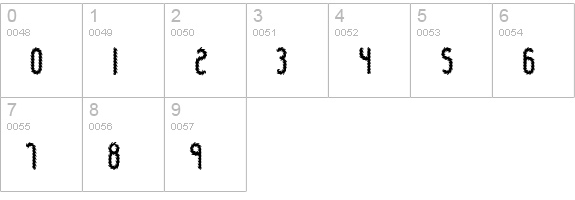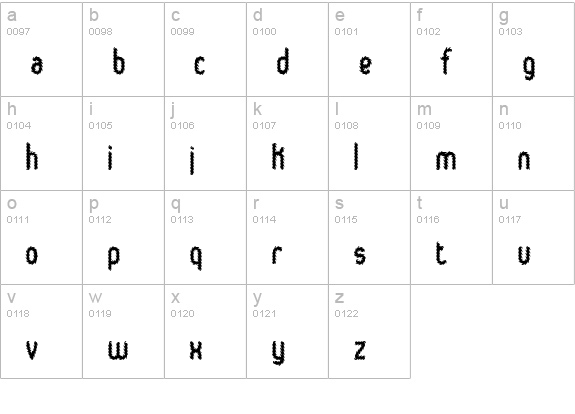
Hairball BRK is a quirky and playful font that adds a fun and whimsical touch to any design project. With its irregular and messy appearance, this font perfectly captures the essence of a hairball - chaotic yet charming. The uneven strokes and unique shapes give it a hand-drawn feel that is both eye-catching and engaging. This font is ideal for projects that require a touch of creativity and personality, such as children's books, greeting cards, posters, and more. Its versatility allows it to be used for both headlines and body text, making it a versatile addition to any designer's toolkit. Best of all, Hairball BRK is free to download at FontsMarket.com, making it accessible to all designers and creatives looking to add a touch of whimsy to their work. Don't miss out on this charming and unique font that is sure to make your designs stand out!